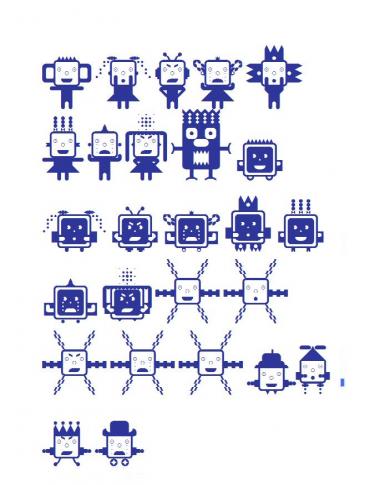
CreatureCuties
26 cute creatures to make you smile :) This was my first time using Fontstruct! Yay!
Oh my goodness.
I like specially the big black monster... Uuuuuuuuh!
Just for a closer look :)
One of each species: